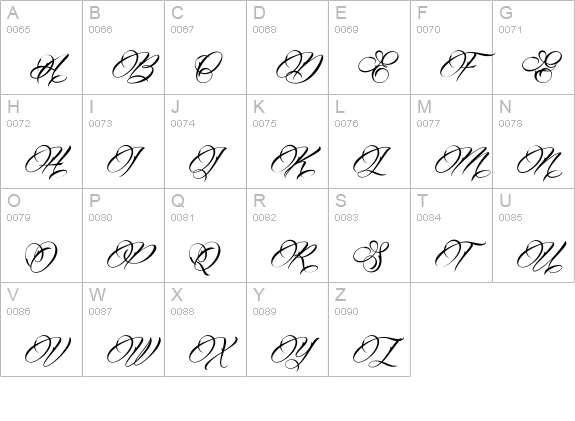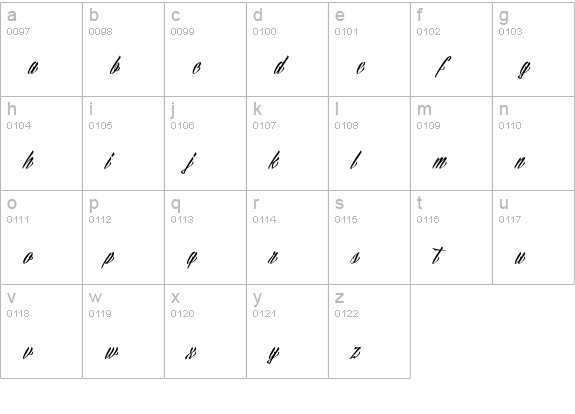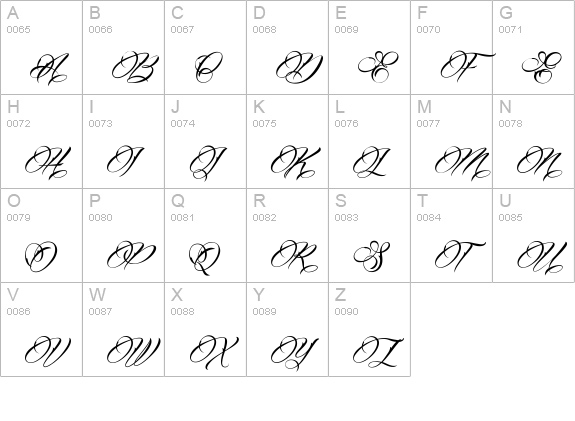
Billion Stars Personal Use is a stunningly beautiful font that will make your designs shine like a billion stars in the night sky. This font exudes elegance, sophistication, and a touch of whimsy, making it perfect for a wide range of projects. With its intricate detailing and delicate curves, Billion Stars Personal Use adds a touch of luxury to any design. Whether you're creating invitations, logos, posters, or social media graphics, this font will effortlessly elevate your work to the next level. But what makes Billion Stars Personal Use truly special is that it is not only visually stunning, but also freely available to download at FontsMarket.com. Yes, you read that right – this incredible font can be yours at absolutely no cost. FontsMarket.com is dedicated to providing designers with high-quality fonts that don't break the bank, and Billion Stars Personal Use is no exception. So go ahead and download Billion Stars Personal Use today and let your creativity soar. With this font in your design arsenal, you'll be able to captivate your audience and create stunning visuals that leave a lasting impression. Don't miss out on this opportunity to add a touch of magic to your designs – get Billion Stars Personal Use now and let your imagination run wild.